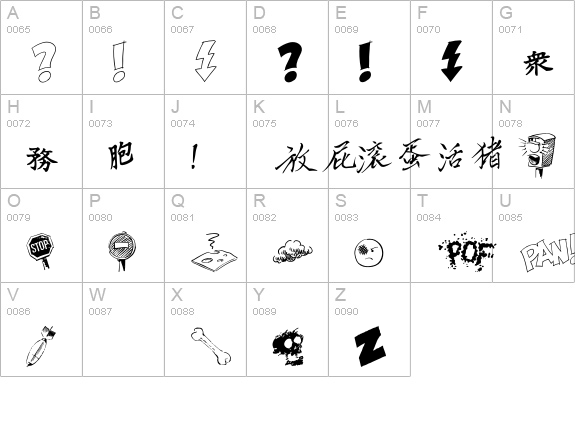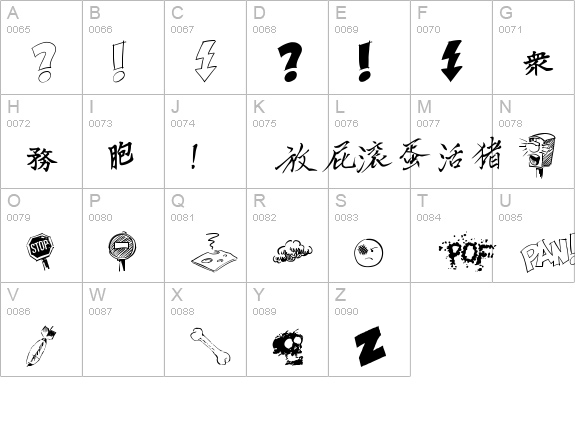
DamnedDingbatsEF-Initials Font Details
The DamnedDingbatsEF-Initials font is a unique and captivating typeface that will add a touch of elegance and sophistication to any design project. This font is perfect for creating eye-catching logos, stylish headlines, or adding decorative elements to your artwork. With its intricate and ornate design, DamnedDingbatsEF-Initials font is sure to make a lasting impression. Each character is carefully crafted with attention to detail, resulting in a visually stunning font that stands out from the crowd. What's even better is that DamnedDingbatsEF-Initials font is completely free! You can freely download this font at FontsMarket.com, one of the most trusted sources for high-quality fonts. Whether you're a professional designer or someone who simply enjoys experimenting with typography, this font is a must-have in your collection. Don't miss out on the opportunity to enhance your designs with the DamnedDingbatsEF-Initials font. Download it for free today and let your creativity flourish!